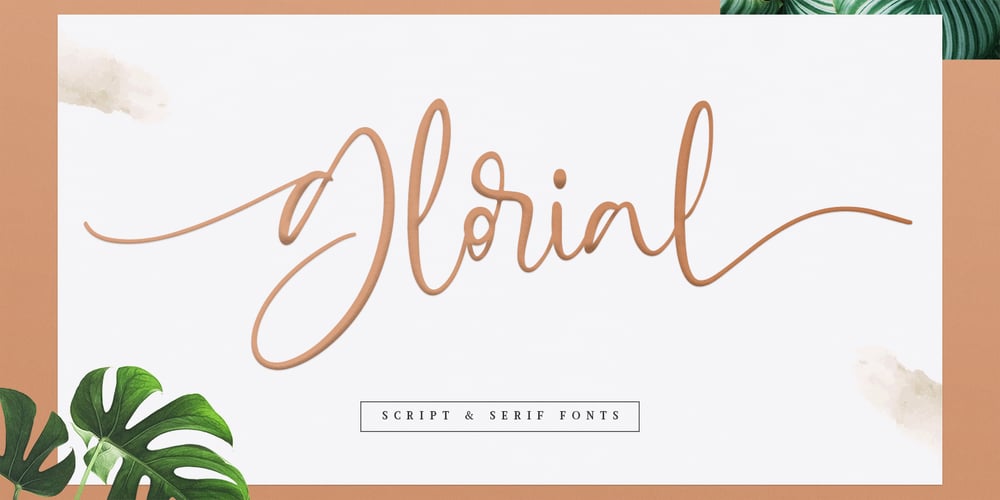
Glorial
Glorial font
Glorial Font Family was designed by Fitriyawan and published by Runsell Type. Glorial contains 1 styles and family package options. Introducing Glorial – An Elegant Script Font The handwritten calligraphy script works perfectly for classy designs. Glorial Script includes a full set of uppercase & lowercase letters with beginning swashes , a full set of lowercase letters with ending swashes, a full set of contextual alternates lowercase letters , 50+ ligatures features that makes the font look more natural. Glorial fonts that special for fashion and matches applies in some designs such as the logotype, brand, magazine, website or blog headlines, packaging, branding, quotes, invitation cards, greeting cards, business cards, and wedding more. Glorial is coded with PUA Unicode, which allows full access to all the extra characters without having special designing software. Mac users can use Font Book, and Windows users can use Character Map to view and copy any of the extra characters to paste into your favorite text editor/app. Glorial Includes: – 50+ Ligatures, Contextual alternates, Stylistic alternates, and Swash – Uppercase, lowercase, numeral, punctuation and symbol – .OTF format files – PUA Encoded Characters – Fully accessible without additional design software – Multilingual support for English, French, Italian, Spanish, Portuguese, German, Swedish, Norwegian, Danish, Dutch, Finnish, Indonesian, Malay, Hungarian, Polish, Croatian, Turkish, Romanian, Czech, Latvian, Lithuanian, Slovak, Slovenian How to get access alternate glyphs with designing software to open type fonts check this link : http: //adobe.ly/1m1fn4Y If you have any question please do not hesitate to contact me. Happy creating!